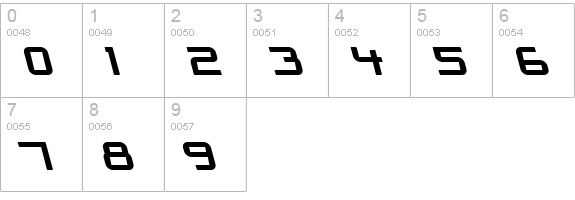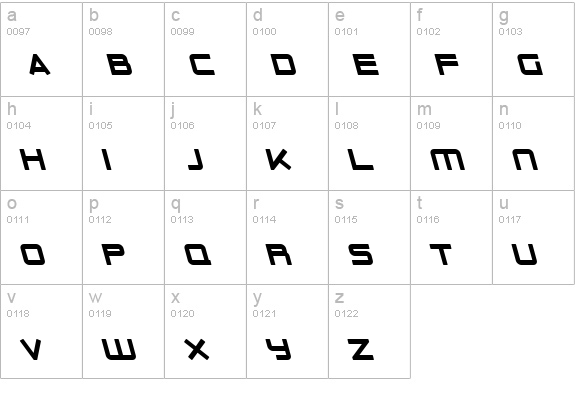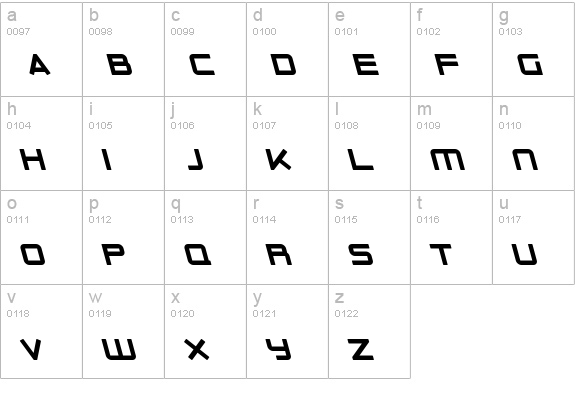
Outer Limits Solid Italic is a distinctive, italic variant in the Outer typeface family \xE2\x80\x94 well suited to design and typography projects.
Outer Limits Solid Italic font is a modern and sleek typeface that exudes a sense of sophistication and creativity. Its bold and italicized design gives a unique touch to any project, making it stand out from the crowd. This font is perfect for branding, headlines, posters, and any design project that requires a contemporary and edgy look. The best part about Outer Limits Solid Italic font is that it is completely free to download at FontsMarket.com. You can easily access this stylish font and use it for both personal and commercial projects without any restrictions. With its versatility and eye-catching appearance, Outer Limits Solid Italic font is a must-have addition to your font collection. Download it today and let your creativity soar!